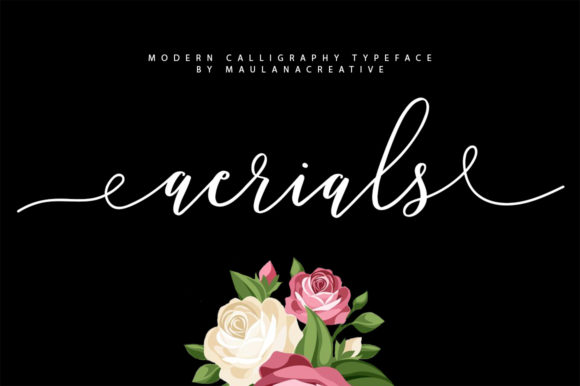
The Aerials Font: Elevate Your Designs with Elegance
Have you ever been in the middle of a design project, and suddenly, you’re stuck on finding the perfect font? I recall a recent experience where I was working on a branding project for a luxury wedding planner. The client wanted a sophisticated, elegant look that would reflect their high-end services. As I scrolled through my font library, I stumbled upon Aerials – a beautiful script font that instantly caught my attention.
With its stunning calligraphic flair, Aerials became the perfect solution for my project. In this article, I’ll share my experience with this gorgeous font, its features, and how to make the most of it in your designs.
An Honest Review of Aerials Font
• ✨ Elegant and sophisticated design, perfect for luxury brands and high-end projects
• 💫 Beautifully crafted with attention to detail, giving it a premium feel
• 🎨 Versatile and adaptable to various design contexts, from stationery to digital media
While Aerials is an exceptional font, there are a few minor considerations to keep in mind:
• ⚠️ Some characters may not work well in all languages or scripts, so it’s essential to test the font with your specific text.
• 🤔 As with many script fonts, Aerials might not be the best choice for body text or long paragraphs, as it can be challenging to read.
Aerials was crafted with the intention of reviving the timeless beauty of classic calligraphy. The designer aimed to create a font that would evoke the elegance and sophistication of traditional calligraphic techniques, while still being versatile and adaptable to modern design contexts. The result is a stunning script font that pays homage to the art of calligraphy, while also meeting the demands of contemporary design.
A: Aerials is perfectly suited for stationery, logos, branding, and any design project that requires an elegant, sophisticated look.
A: Yes, Aerials supports OpenType features, including glyphs, stylistic alternates, and swashes, which can be accessed in compatible design software.
A: While Aerials is highly legible, it’s recommended to use it for headlines, titles, or short text passages, as it may not be the best choice for body text or long paragraphs.